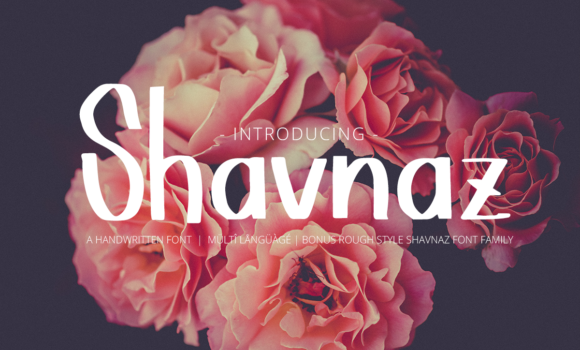
shavnaz
Shavnaz Font – Free Download Introduction to Shavnaz Font Shavnaz is an elegant, yet casual sans serif font that delivers an extraordinart font experience. 📸 Preview Gallery 6 images 📌 Product Name Shavnaz Font 👤 Author Scratch Design 📂 Category